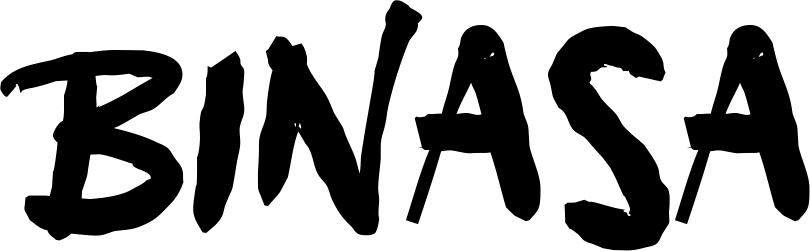
B Binasa Font
B Binasa font, with a combination of thin and thick lines and painted edges, can be an excellent choice for T-shirt designs. We have good news for those interested in designing sports flyers this font can be a great choice to make your design very different.
It is not remarkable to say that there are no small characters in this fat marker font, but you can use many Halloween, and scary video games, and movie posters.